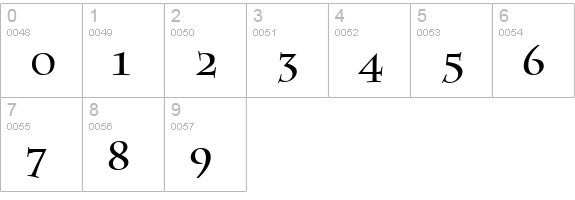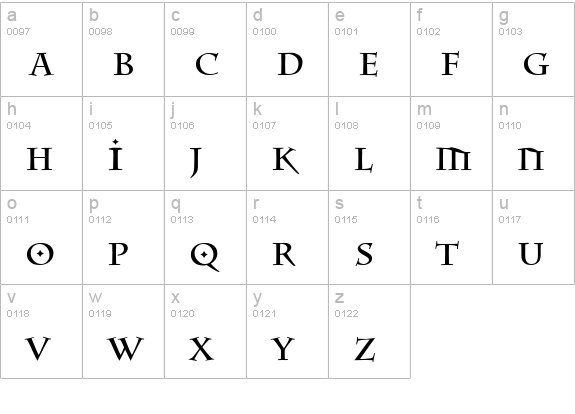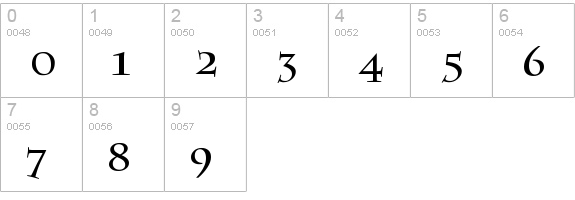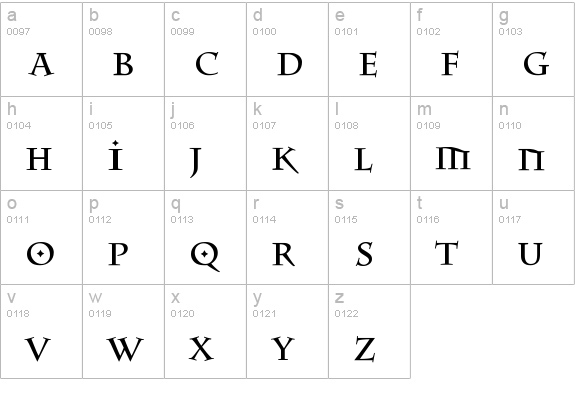
Equipe Font Details
Equipe font is a modern and versatile typeface that exudes elegance and sophistication. Its clean lines and sharp edges make it perfect for a variety of design projects, from branding to editorial layouts. The font's sleek and contemporary appearance is sure to make a statement and capture the attention of your audience. What's even better is that Equipe font is available for free download at FontsMarket.com. This means you can easily access this stylish font and incorporate it into your creative endeavors without any cost. With its timeless appeal and effortless readability, Equipe font is a must-have addition to your font collection. Don't miss out on the opportunity to enhance your designs with this beautiful typeface, available for free at FontsMarket.com.